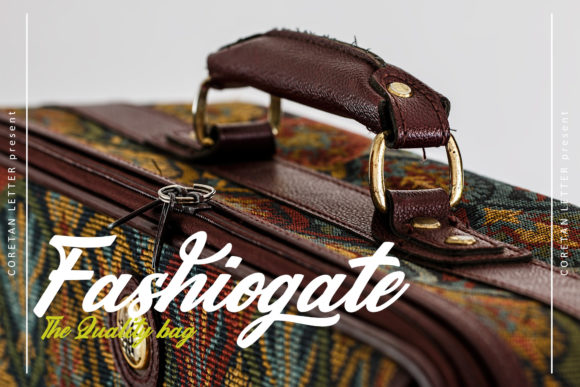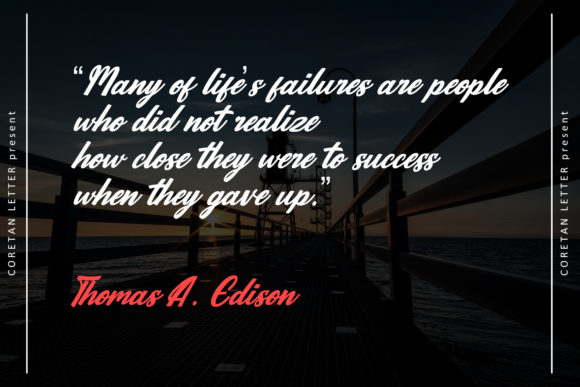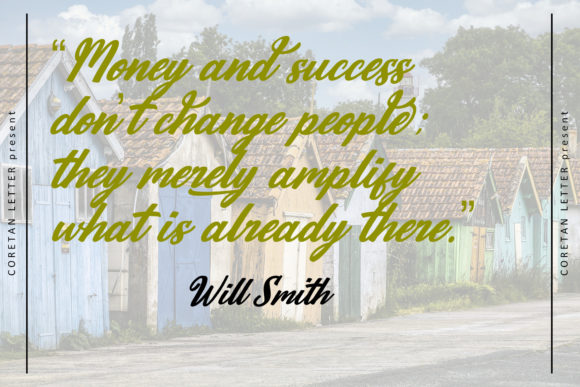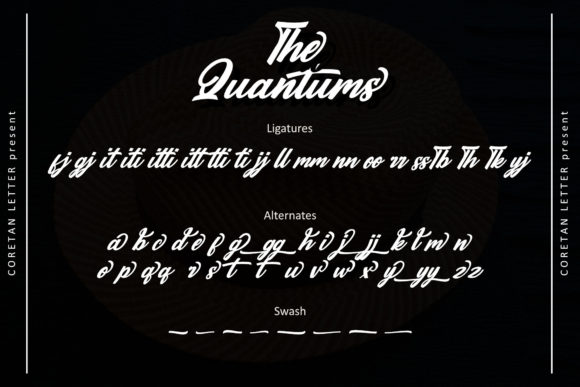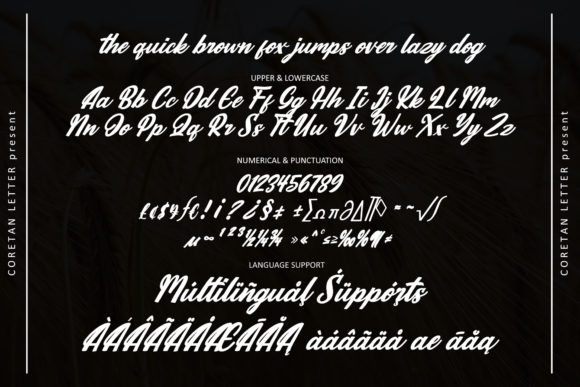
The Quantums Font
About The Quantums Font
The Quantums is a delicate and timeless handwritten font. It looks stunning on wedding invitations, thank you cards, quotes, greeting cards, logos, business cards and every other design which needs a customized touch.